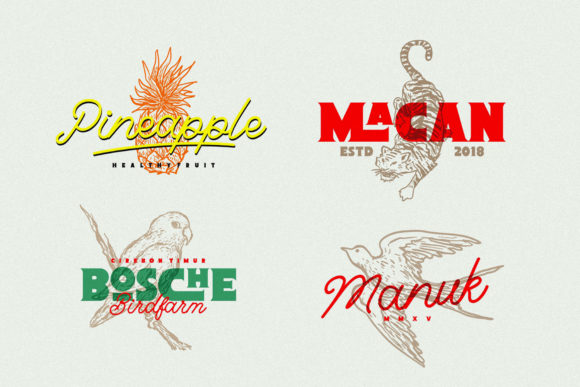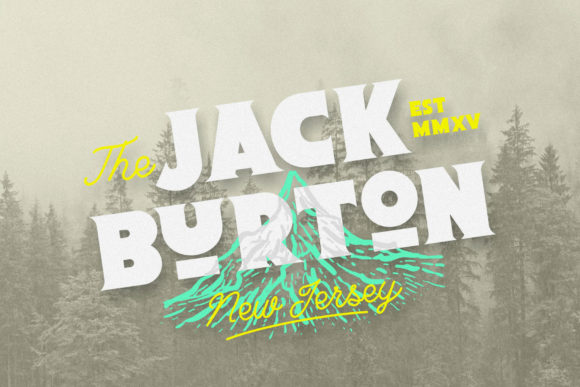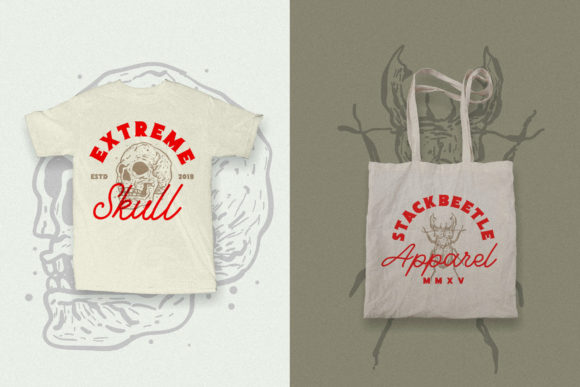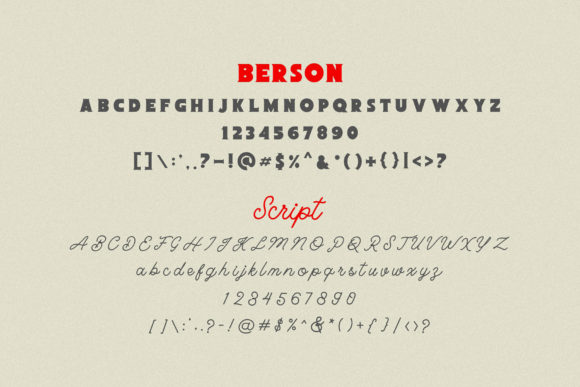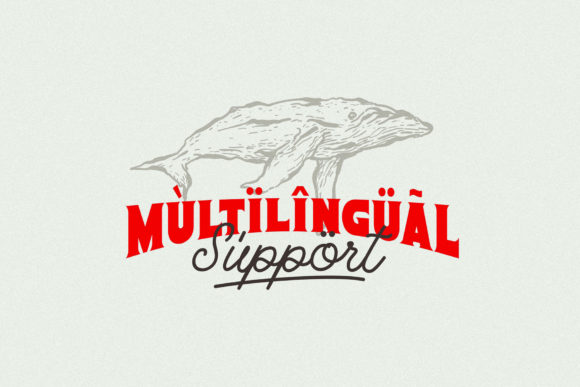
Berson Font: Elevate Your Designs with a Bold and Chunky Vintage Style
In the world of typography, fonts play a crucial role in making or breaking a design. A well-chosen font can instantly elevate your project, making it stand out from the crowd. If you’re a designer or crafter looking for a bold and eye-catching font, look no further than Berson Font. This vintage-style display font is designed to turn any design idea into a standout, and in this article, we’ll explore what makes it so special.
The Berson Font: A Bold and Chunky Vintage Style
Berson is a bold and chunky vintage-style display font that exudes confidence and style. Its chunky letters and bold lines make it perfect for headlines, titles, and any other design element that needs to grab attention. The font’s vintage vibe adds a touch of nostalgia and sophistication, making it ideal for designs that require a classic, yet modern twist.
Key Features of Berson Font
- Bold and Chunky Design: Berson’s bold and chunky design makes it perfect for creating eye-catching headlines and titles.
- Vintage Style: The font’s vintage vibe adds a touch of nostalgia and sophistication to any design.
- Highly Legible: Despite its bold design, Berson is highly legible, making it easy to read even at smaller sizes.
- Versatile: Berson can be used for a wide range of design projects, from posters and flyers to logos and branding.
Use Cases for Berson Font
Berson Font is an incredibly versatile font that can be used for a wide range of design projects. Here are some use cases where Berson shines:
- Posters and Flyers: Berson’s bold design makes it perfect for creating eye-catching posters and flyers that grab attention.
- Logos and Branding: The font’s vintage vibe and bold design make it ideal for logos and branding projects that require a classic, yet modern twist.
- Headlines and Titles: Berson is perfect for creating bold and eye-catching headlines and titles for articles, blog posts, and other written content.
- Packaging Design: The font’s chunky design and vintage vibe make it suitable for packaging design projects that require a bold and eye-catching look.
Tips for Using Berson Font Effectively
To get the most out of Berson Font, here are some tips for using it effectively:
- Use it Sparingly: Berson’s bold design can be overwhelming if used excessively. Use it sparingly to create emphasis and draw attention.
- Pair it with a Simple Font: Pair Berson with a simple font to create contrast and make your design more visually appealing.
- Experiment with Colors: Berson looks great in bold colors, so experiment with different colors to find the one that works best for your design.
In conclusion, Berson Font is a bold and chunky vintage-style display font that’s perfect for designers and crafters looking to elevate their designs. Its bold design, vintage vibe, and high legibility make it ideal for a wide range of design projects. By following the tips outlined in this article, you can use Berson Font effectively to create stunning designs that grab attention and leave a lasting impression.